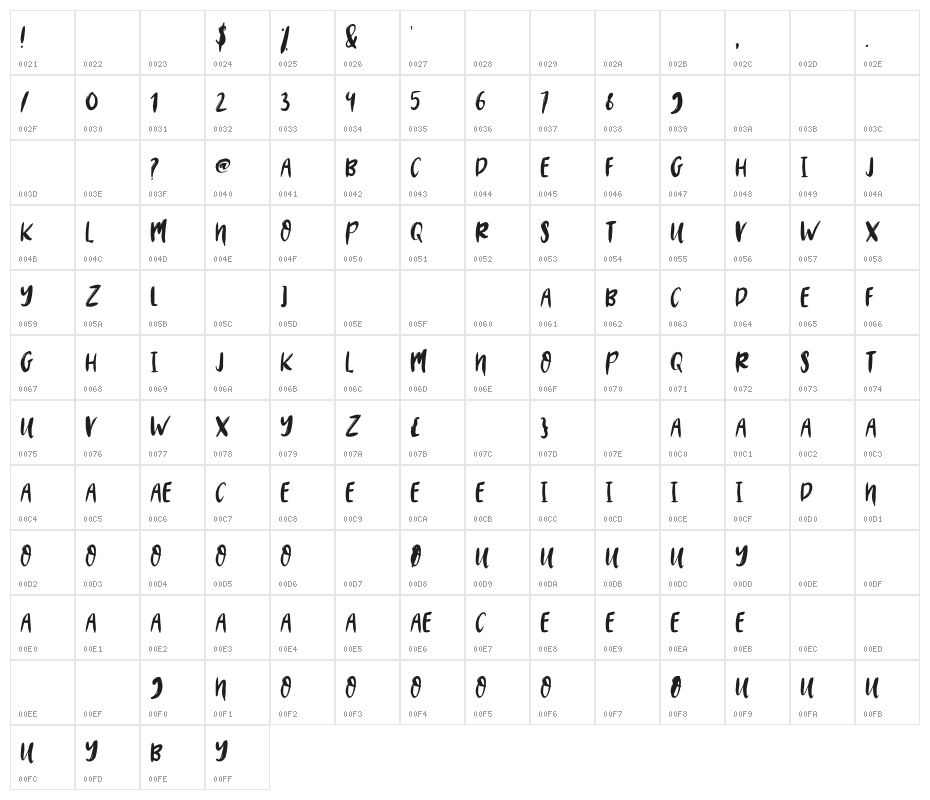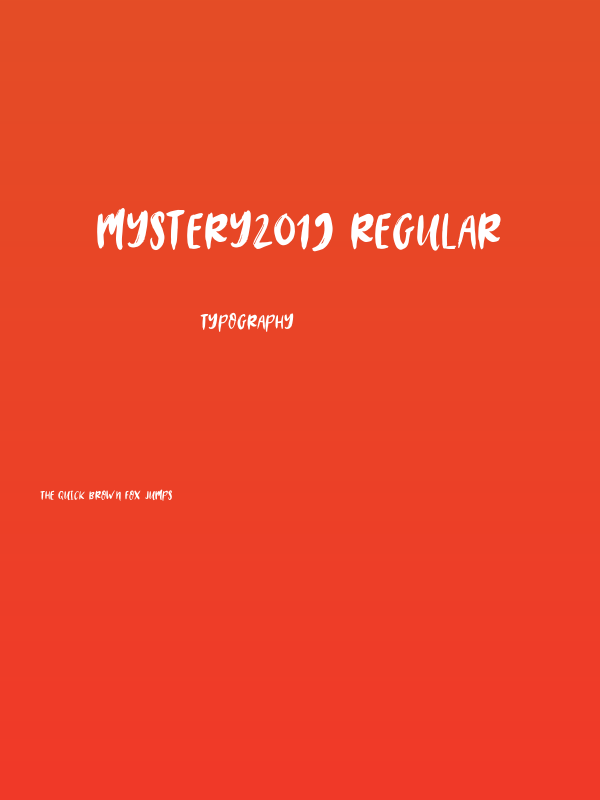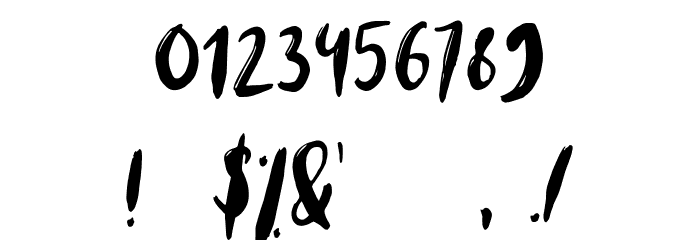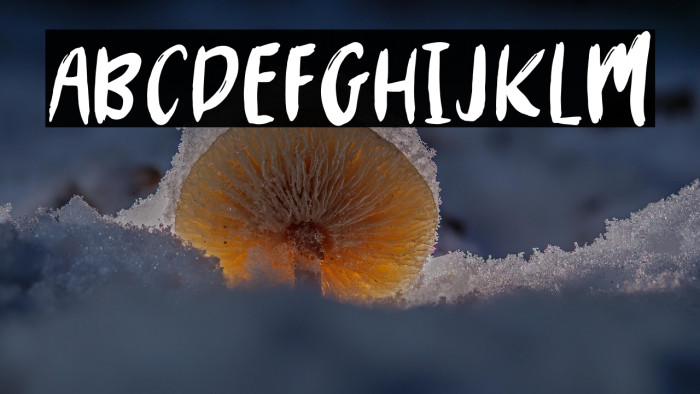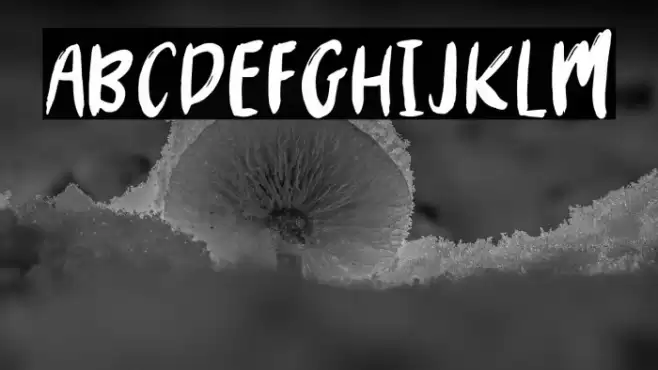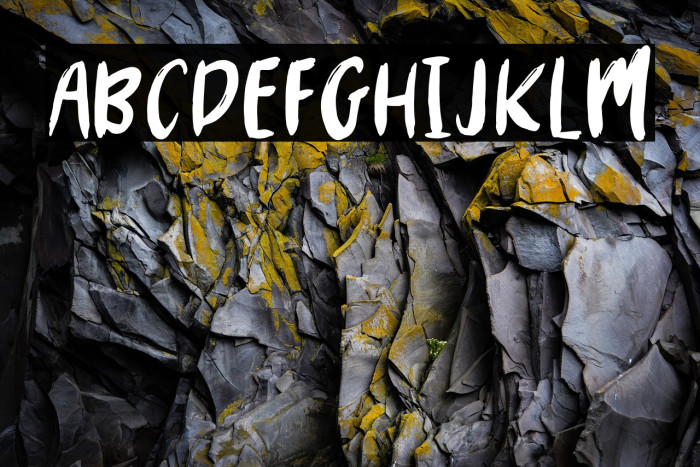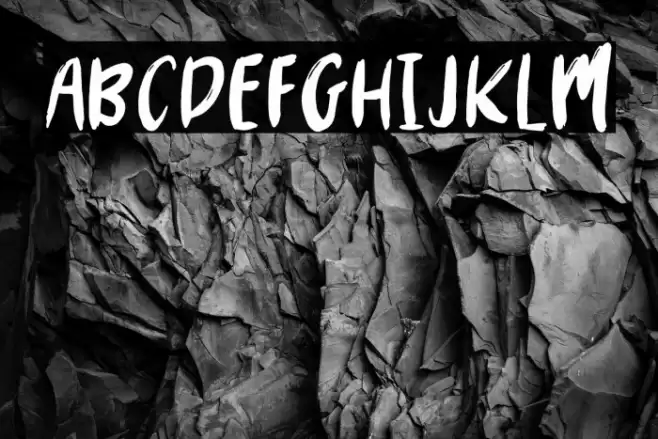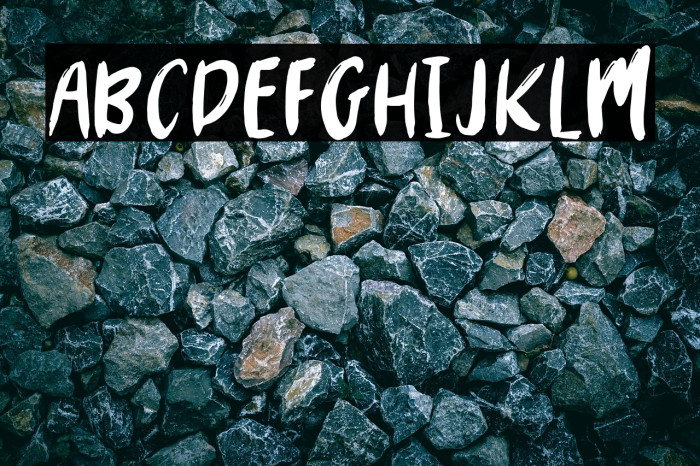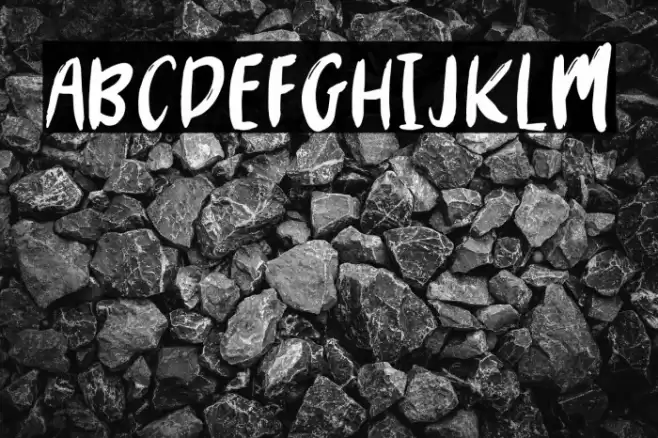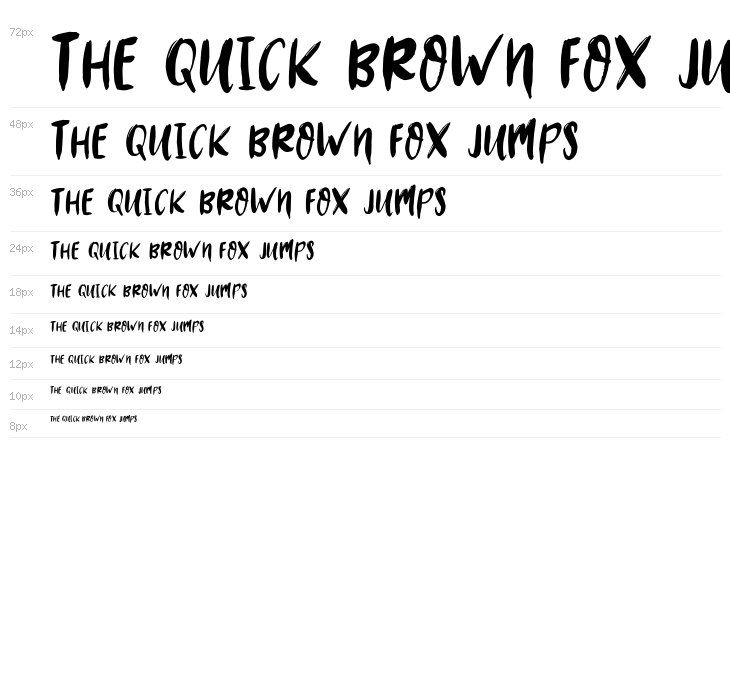
MYSTERY2019-Regular Font
✎ Thick
| Caso de uso | Logos, Headlines, Posters |
| Proyectos propuestos | Ideal for branding, posters, social media graphics, and any design requiring a bold, artistic touch. |